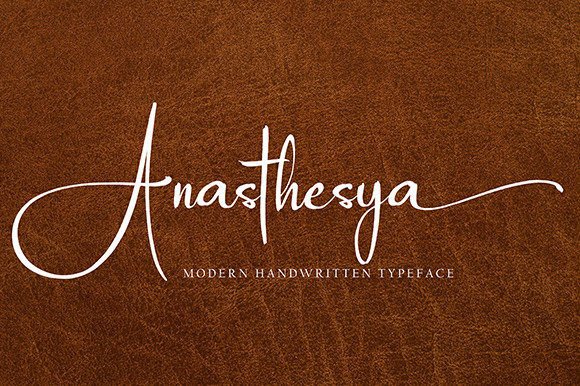
Introducing Anasteshya Font: Elevate Your Designs with Elegance and Class
In the world of typography, a font can make or break the aesthetic of a design. For those seeking a touch of sophistication and refinement, Anasteshya Font is an exquisite choice. This lovely and delicate script font is specifically crafted for designers and crafters who desire a beautiful and refreshing look for their projects. With its elegant strokes and classic appeal, Anasteshya Font is poised to become a favorite among typography enthusiasts.
The Beauty of Anasteshya Font
Anasteshya Font boasts a unique and captivating charm that sets it apart from other script fonts. Its delicate lines and curves exude a sense of elegance, making it perfect for designs that require a touch of sophistication. Whether you’re working on a branding project, wedding invitation, or packaging design, Anasteshya Font is sure to impress. The font’s classic appeal ensures that it will complement a wide range of design styles, from modern to vintage.
One of the standout features of Anasteshya Font is its PUA (Private Use Area) encoding. This means that users can access all glyphs and swashes with ease, allowing for greater flexibility and creativity in design. With PUA encoding, you can effortlessly navigate the font’s extensive character set, including ligatures, alternates, and ornaments. This feature makes it simple to customize your text and add a personal touch to your designs.
Anasteshya Font is an excellent choice for designers and crafters who want to add a touch of elegance to their work. Whether you’re creating:
- Wedding invitations, stationery, and ceremony decor
- Packaging designs, including product labels and boxes
- Digital content, such as social media graphics and blog headers
Anasteshya Font is the perfect companion to help you achieve your design goals. Its versatility and beauty make it an excellent addition to any design project.
Tips for Using Anasteshya Font
To get the most out of Anasteshya Font, consider the following tips:
- Pair Anasteshya Font with a clean sans-serif font for a striking contrast
- Use the font’s swashes and ligatures to add visual interest to your text
- Experiment with different font sizes and colors to create a unique look
- Take advantage of the font’s PUA encoding to access a wide range of glyphs and characters
Anasteshya Font is a stunning script font that offers a perfect blend of elegance and class. With its delicate lines, classic appeal, and PUA encoding, this font is an excellent choice for designers and crafters seeking to elevate their designs. Whether you’re working on a branding project, wedding invitation, or packaging design, Anasteshya Font is sure to impress. So why wait? Discover the beauty of Anasteshya Font and take your designs to the next level.